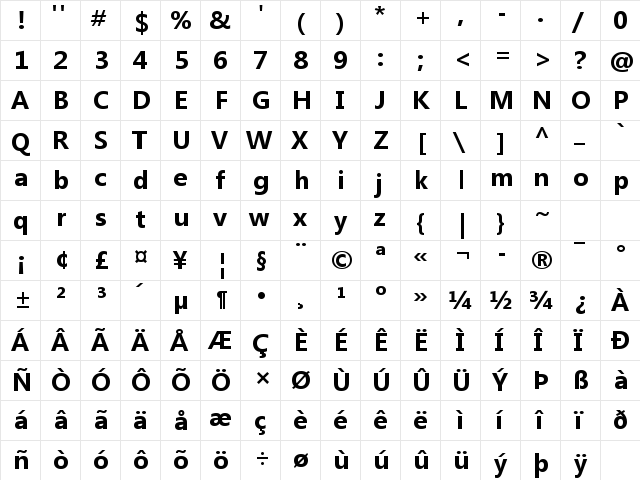
Microsoft YaHei Bold
| Foundry | Microsoft Corporation |
| Designer | Founder |
Design Context for Microsoft YaHei Typeface
Microsoft YaHei is a composed and adaptable typeface that performs quietly and consistently across a wide range of design contexts. Its bold stroke weight gives it real presence on the page.